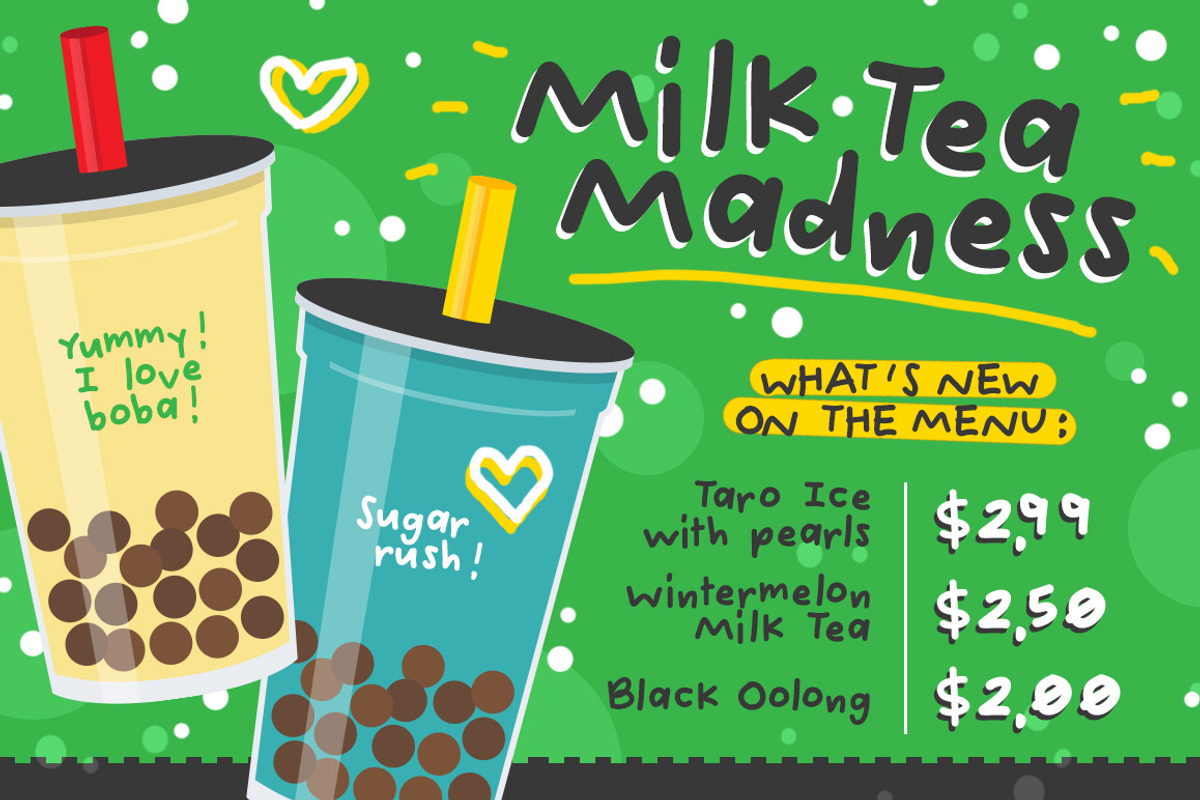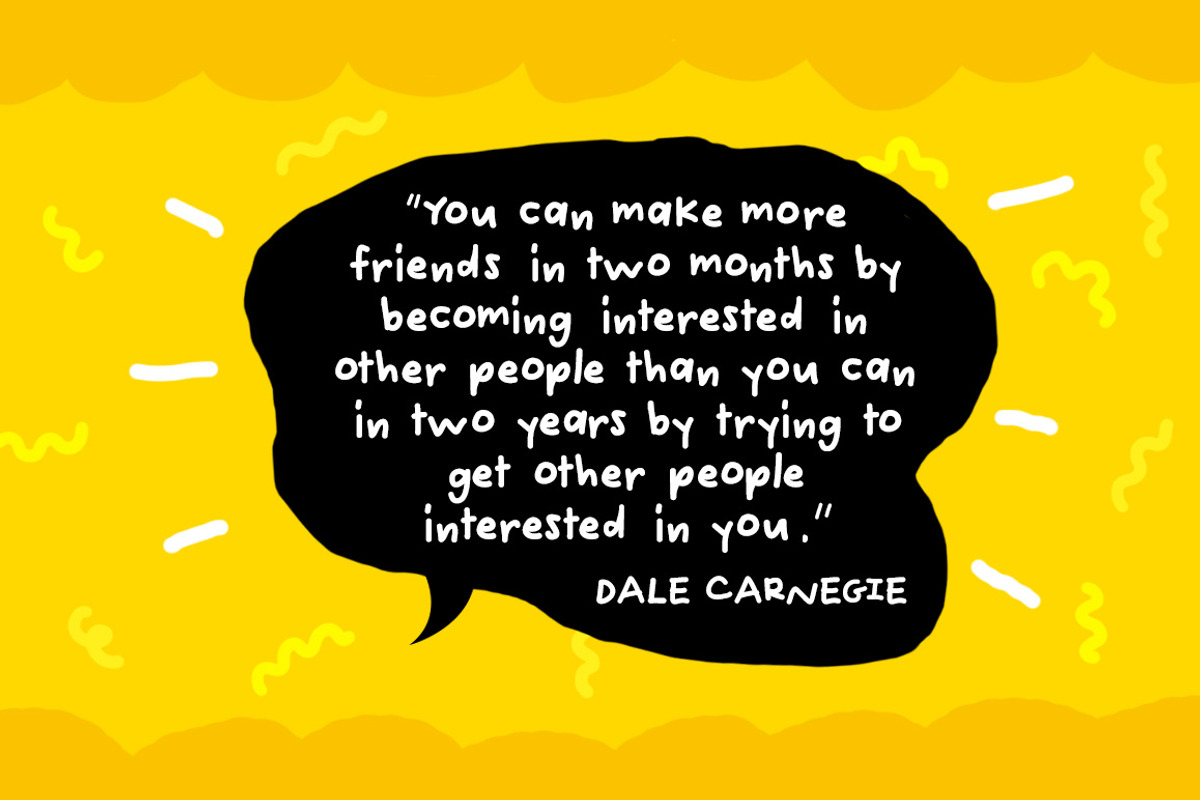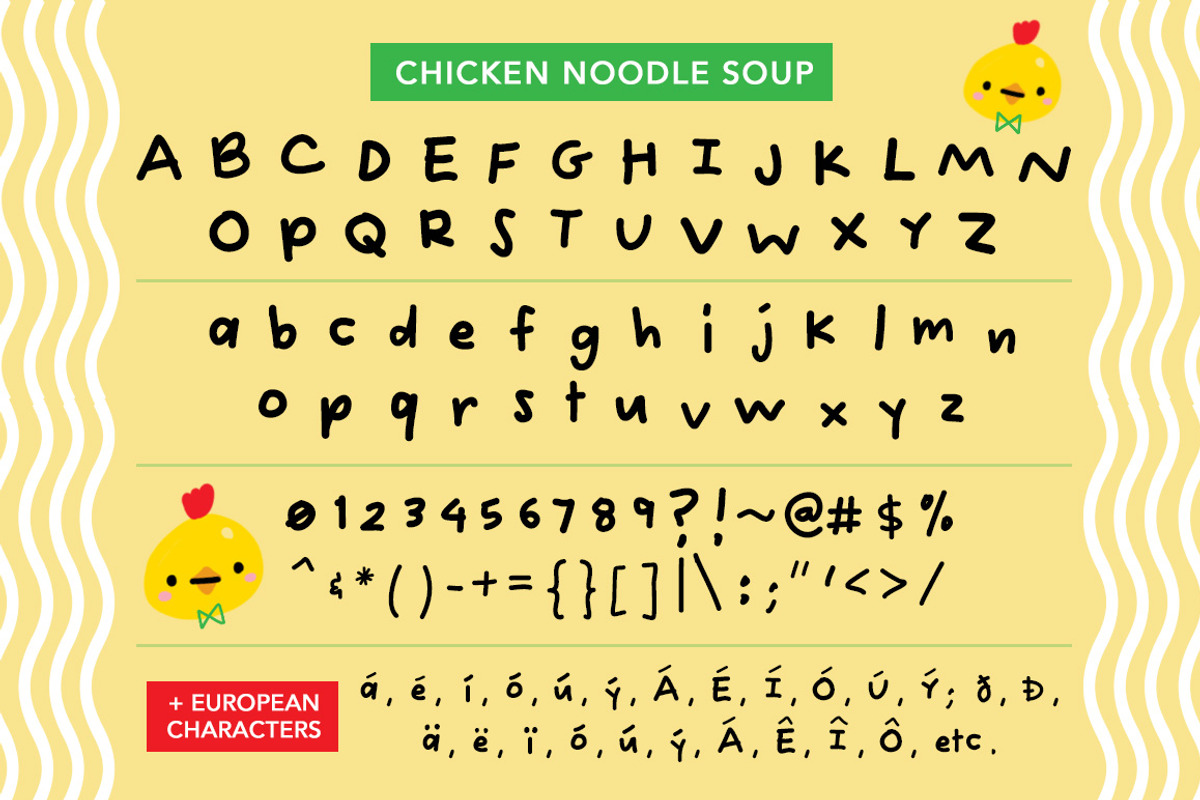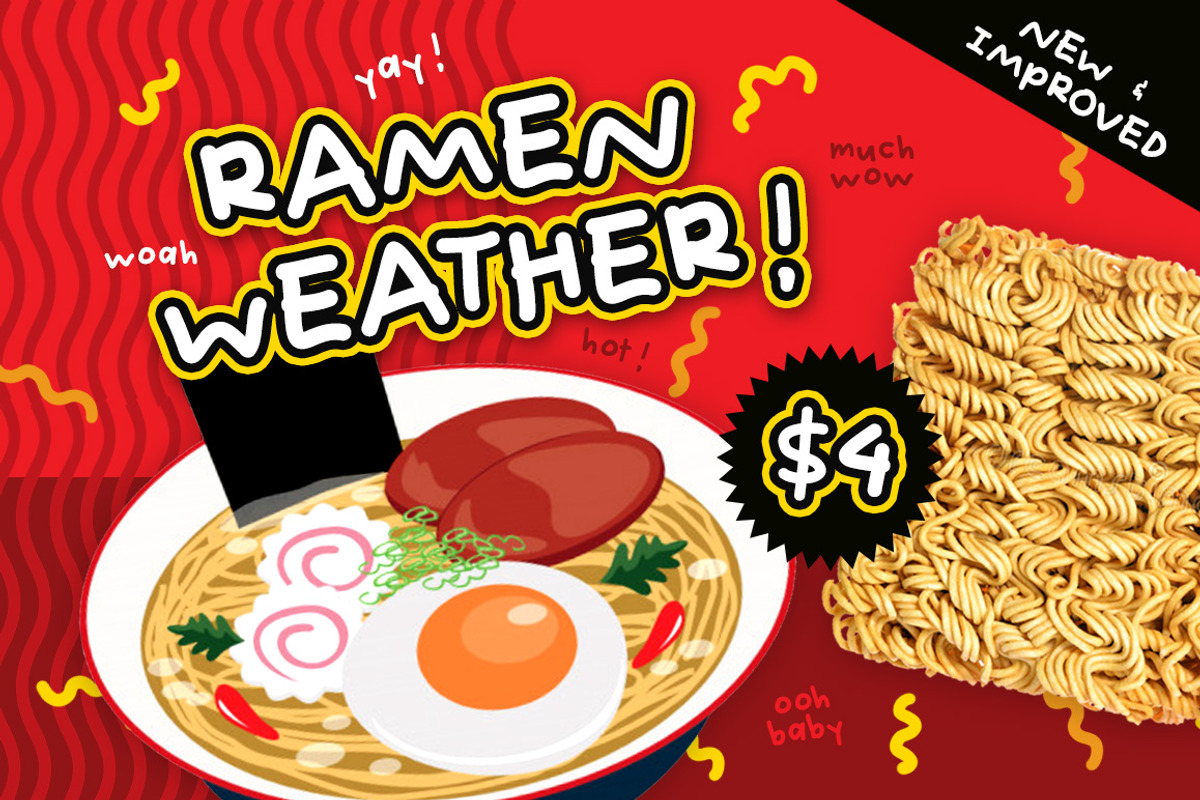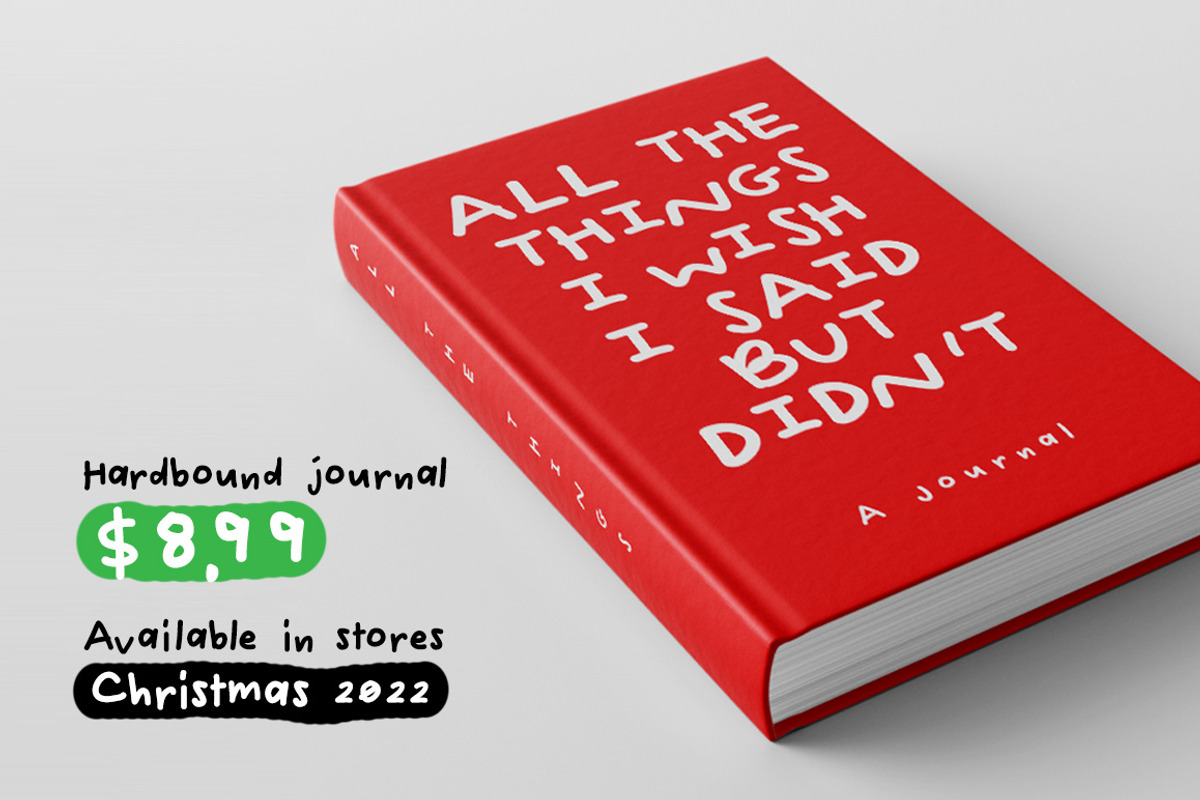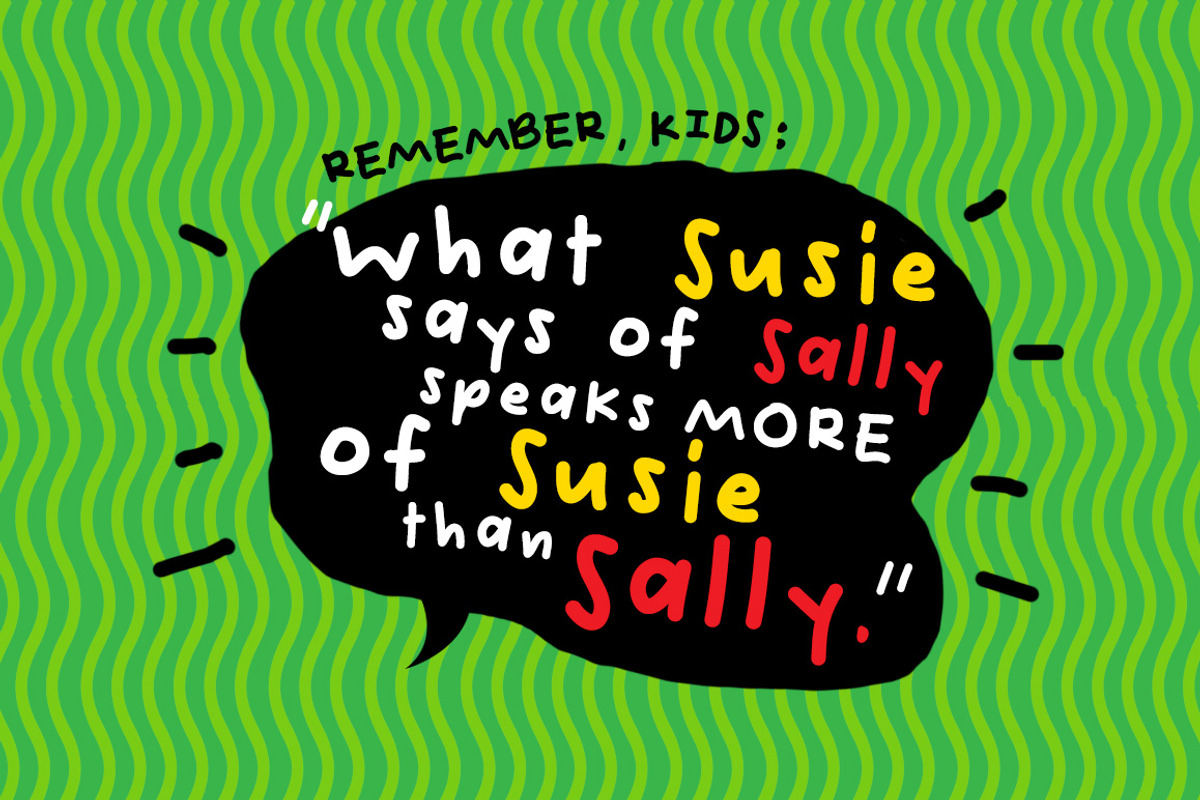
Chicken Noodle Soup Font
Super charming and super cute, Chicken Noodle Soup is the perfect handwritten font that gives off a casual, happy-go-lucky vibe. So fun! This font is great for birthday party invitations, social media graphics, posters, and anything else that would benefit from this font's uneven baseline and legible handwritten look that's great for both headline and body copy.
Numerals and punctuation
European language characters